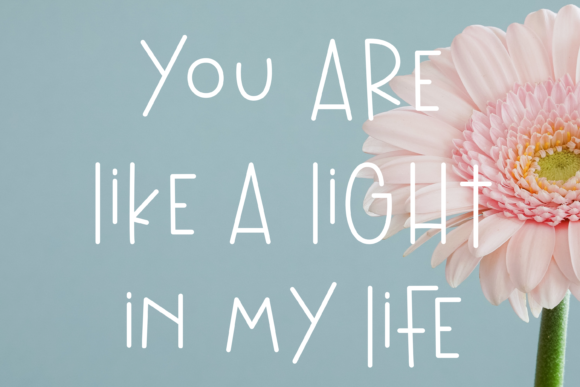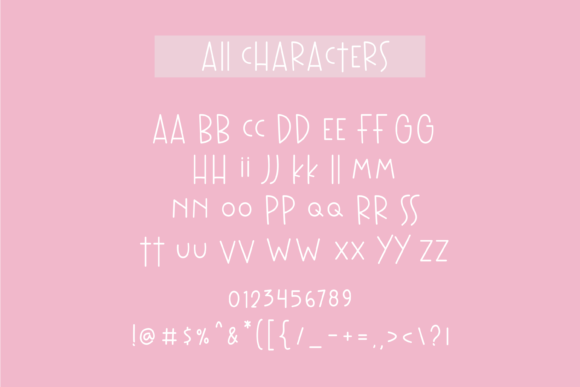
Sunrise Morning Font
About Sunrise Morning Font
Sunrise Morning is a playful script font that adds a touch of fun and cheerfulness to your designs. With its flexible and neat style, this font brings a bright and lively energy to each project. Have fun with this cool font and explore its endless variations to create truly engaging and dynamic designs.
The playful nature of Sunrise Morning sets it apart and adds a delightful charm to your creations. The font’s lively and whimsical style captures attention and creates a sense of joy. It brings a positive and energetic vibe to your designs, making them visually appealing and captivating.
Sunrise Morning’s flexibility and neat style make it a versatile choice for a wide range of projects. Whether you’re designing greeting cards, posters, social media graphics, or any other creative endeavor, this font adapts effortlessly. It adds a touch of playfulness and liveliness, making your designs stand out with a vibrant and cheerful aesthetic.
The neat style of Sunrise Morning brings a sense of order and clarity to your designs. Its well-defined letterforms and balanced proportions create a harmonious and visually pleasing composition. This font maintains a clean and polished look while still exuding a playful and fun atmosphere.
By embracing Sunrise Morning’s cool and playful nature, you unlock a world of creative possibilities. The font’s flexibility allows you to experiment with different variations and styles. Add swirls, loops, or other decorative elements to make your designs unique and engaging.
Incorporating Sunrise Morning into your designs lets you infuse them with a bright and lively energy. The font’s playful and neat style enhances the overall appeal, making your projects visually captivating and memorable. Let Sunrise Morning be your creative companion, and explore its endless variations to create designs that truly shine.
In summary, Sunrise Morning is a playful script font that adds a fun and cheerful touch to your designs. Its flexible and neat style brings brightness and liveliness to each project. Have fun with this cool font and unleash your creativity to explore its endless variations. Embrace the playful nature of Sunrise Morning and watch as it brightens up your designs, creating engaging and dynamic compositions.